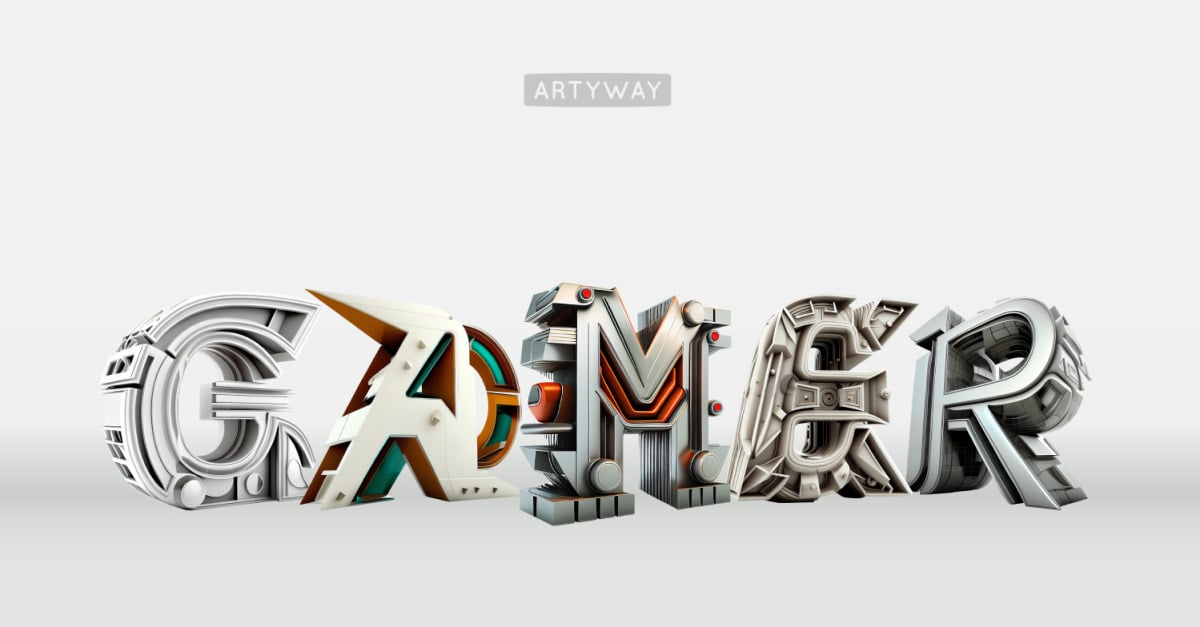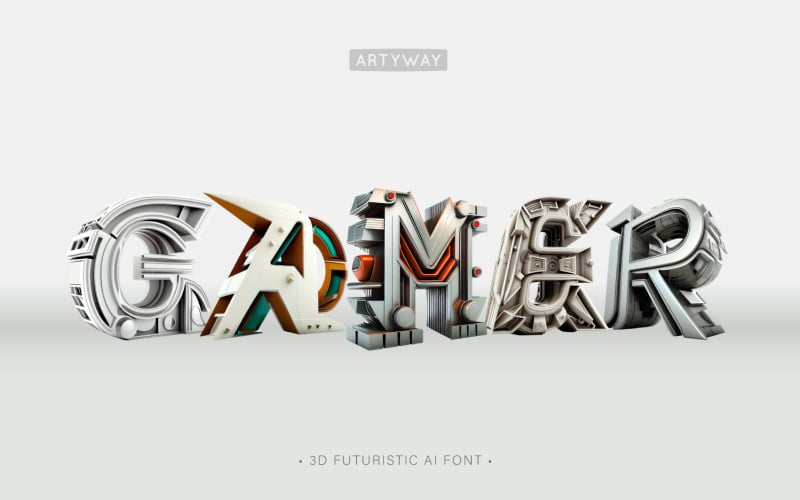
3D Futuristic Gamer Font for Logo
The extruded letters appear to be floating in space, giving them a three-dimensional look. Some examples include cyber techno effects, mechanical design, and metallic finishes.
This style of font is may be used in science fiction, technology-related projects, or designs that aim to convey a sense of innovation and progress.